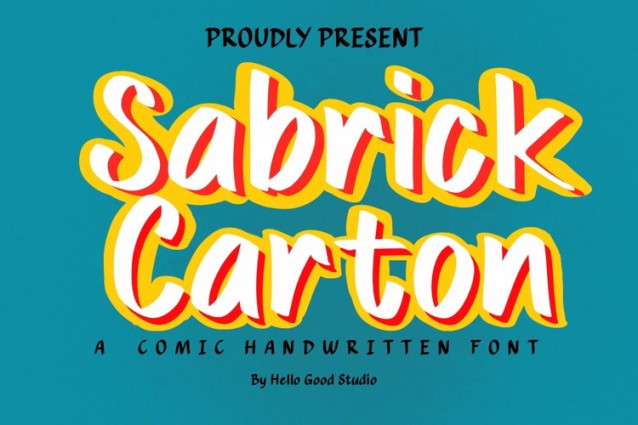
Sabrick Carton Font a sweet and friendly handwritten font. Cute and fun, this font is ideal for writing wedding invitations, cards, or any other design that might need a fun touch!
Sabrick Carton Font